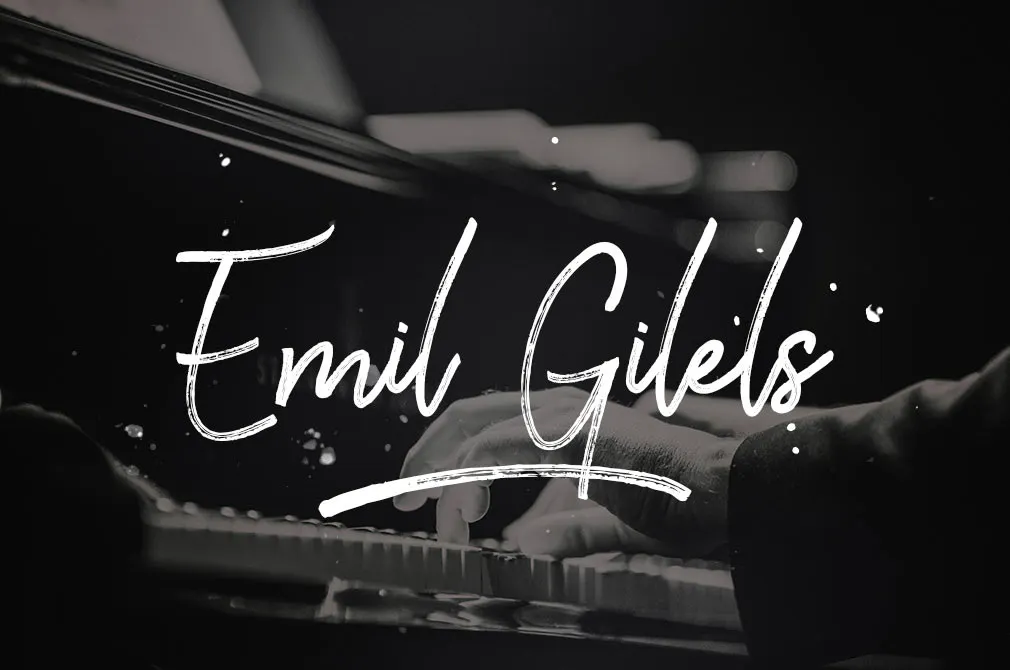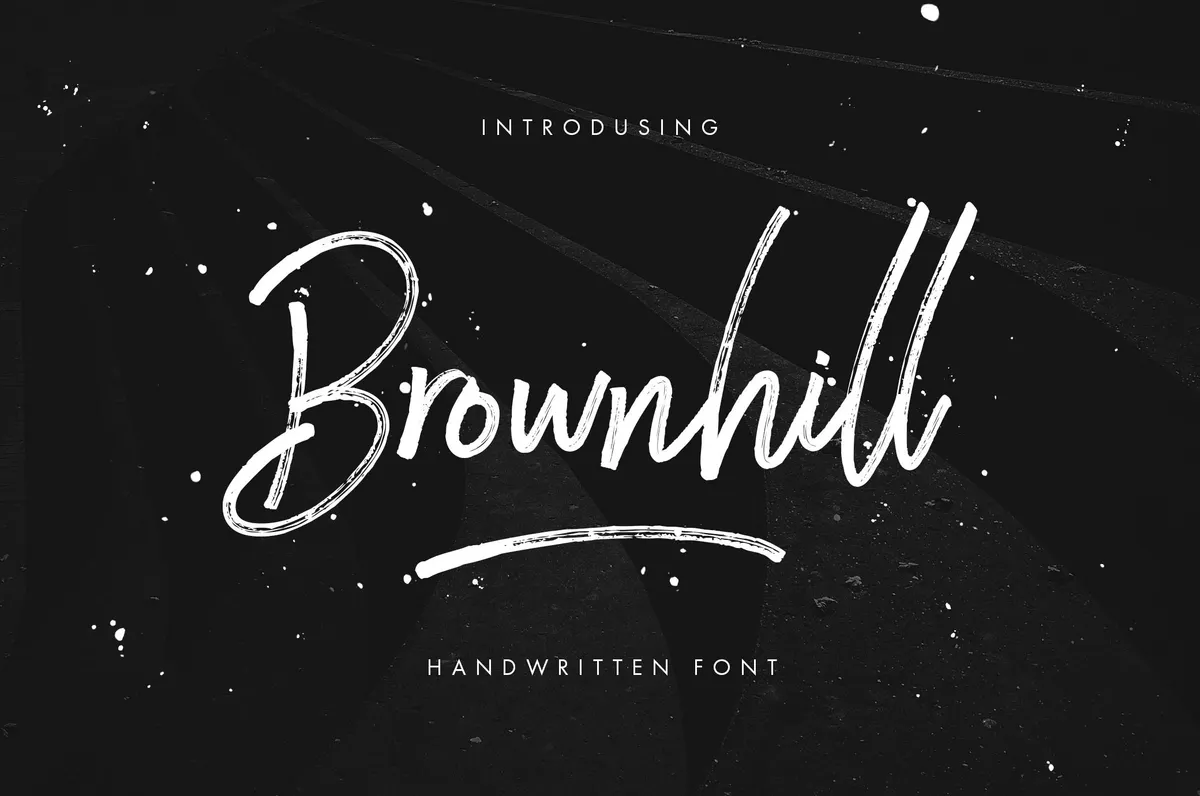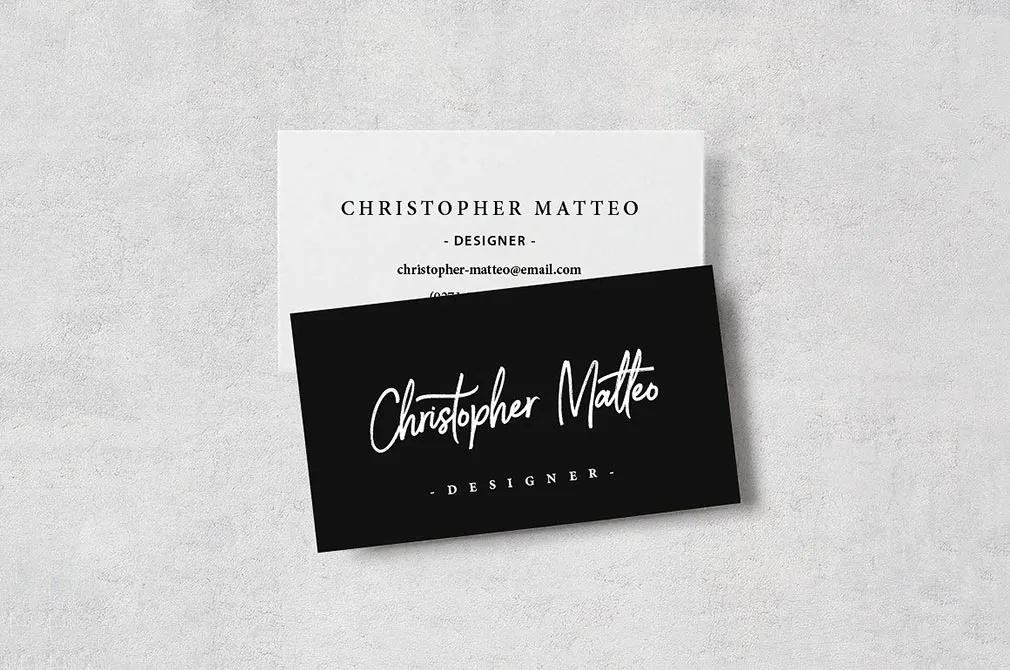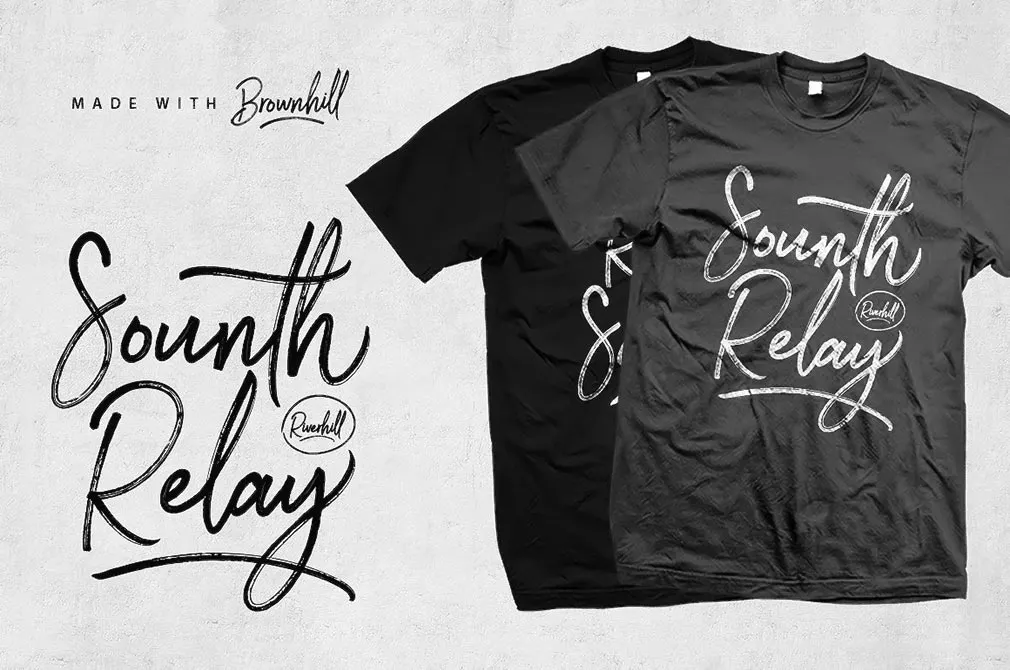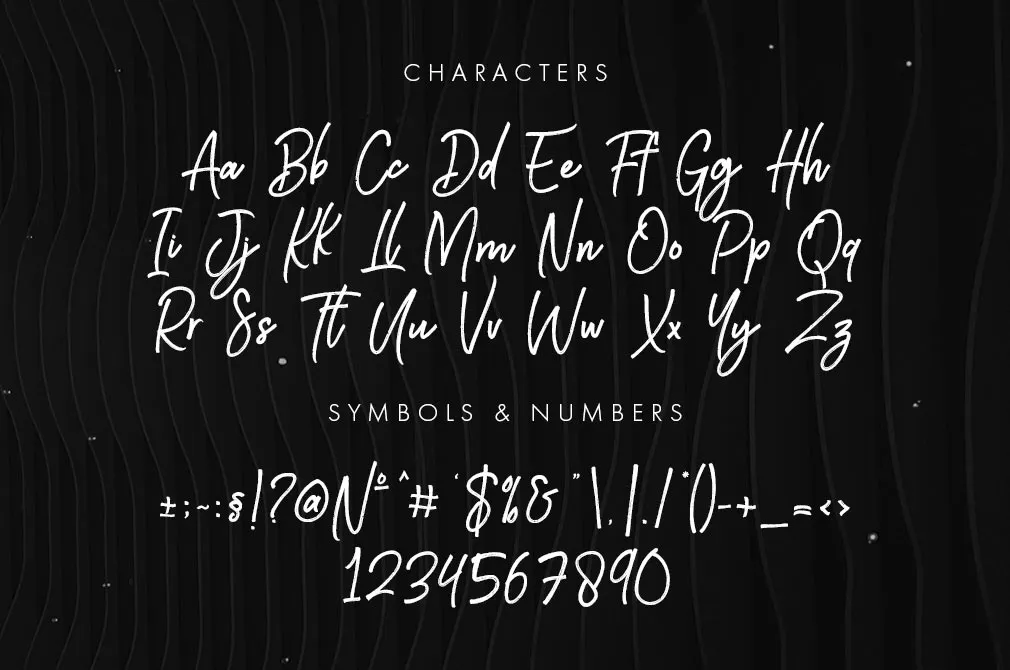
Brownhill Script Font
Time for pure amazement with a beautiful script font, made of soft strokes to fit the most tender, the most romantic projects ever. It'll make you recall your love to vintage and classics!
To connect with art you may not only follow the greatest masters but also create your own unique artworks: packaging, branding, printed production, wedding invitations and what not! The font looks fascinating along with a full set of lower & uppercase letters, a large range of punctuation and numerals and a bonus swash made to bring some ease to your work process.